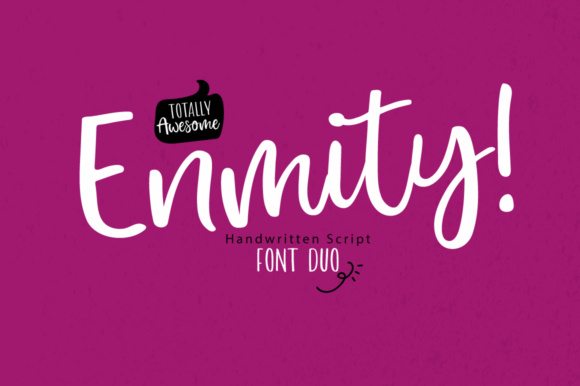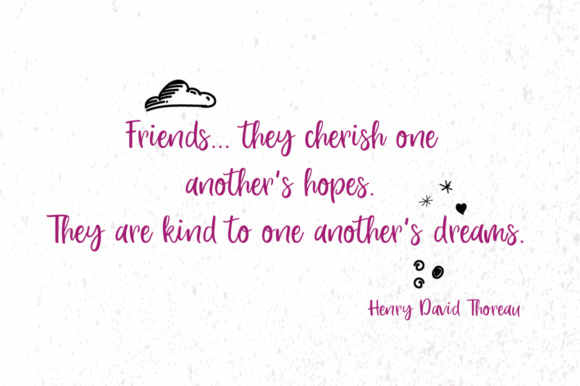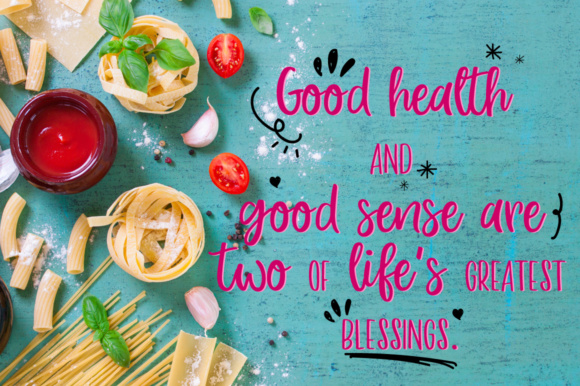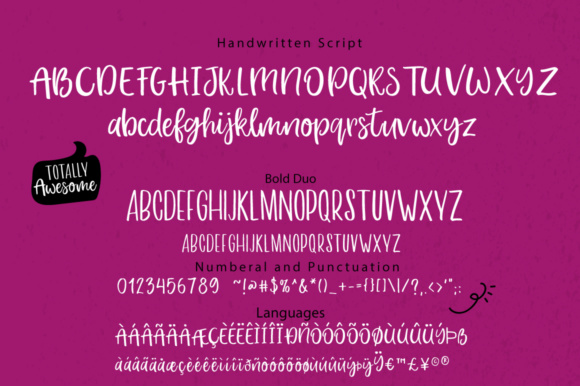
Enmity! Font
About Enmity! Font
Enmity! Is a striking, handwritten script font. Enmity comes in two beautiful styles which makes it perfect for various purposes.
Important – Enmity! Bold has Uppercase letters only.